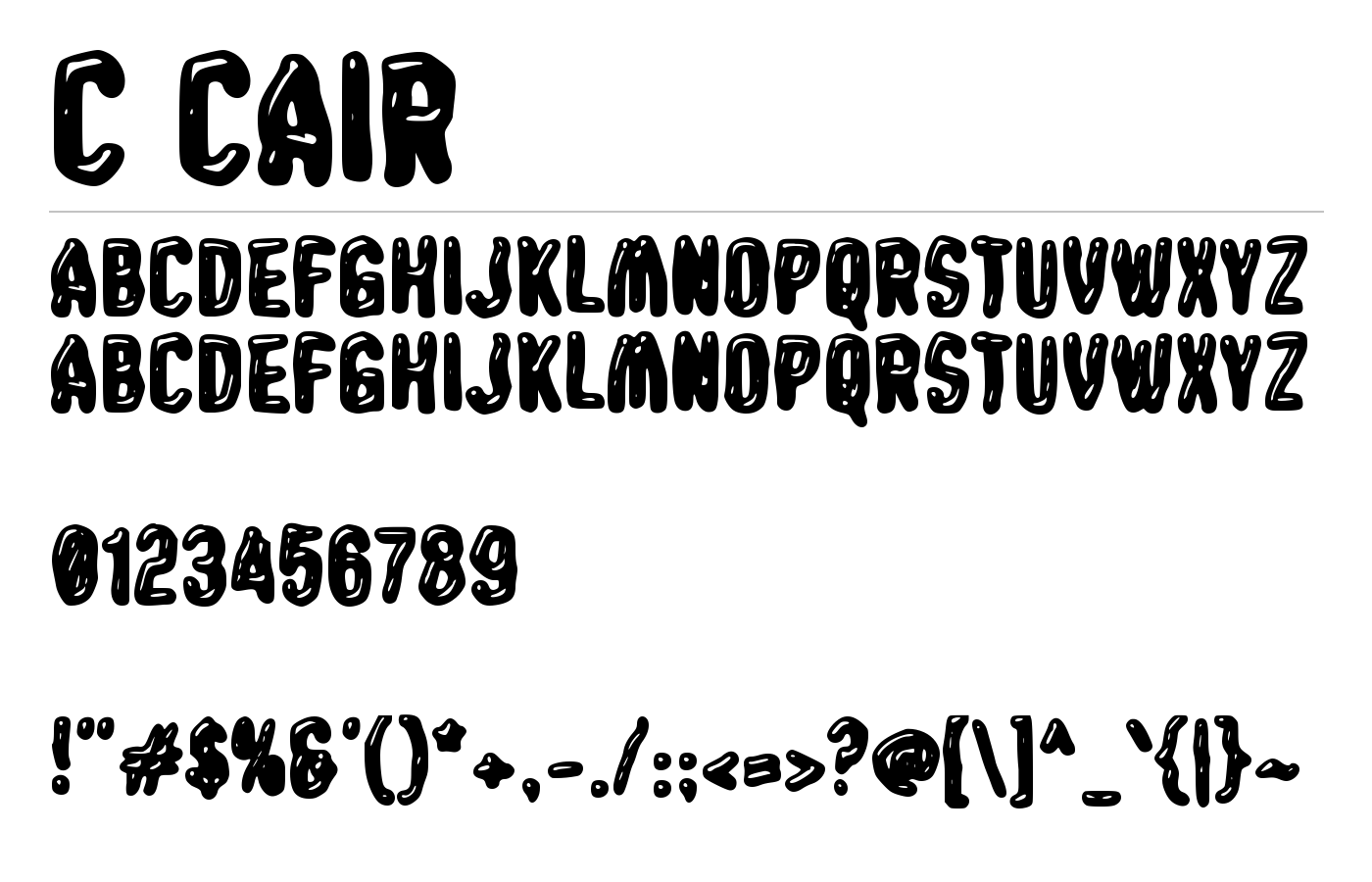
C Cair is a bold, playful display font characterized by its thick, irregular strokes and organic, hand-drawn feel. With a slightly condensed width and rounded edges, it carries a casual, quirky personality perfect for fun, informal designs such as children’s books, party invitations, or creative branding. Its distinct, eye-catching style makes it ideal for headlines and logos where a lively and approachable tone is desired.